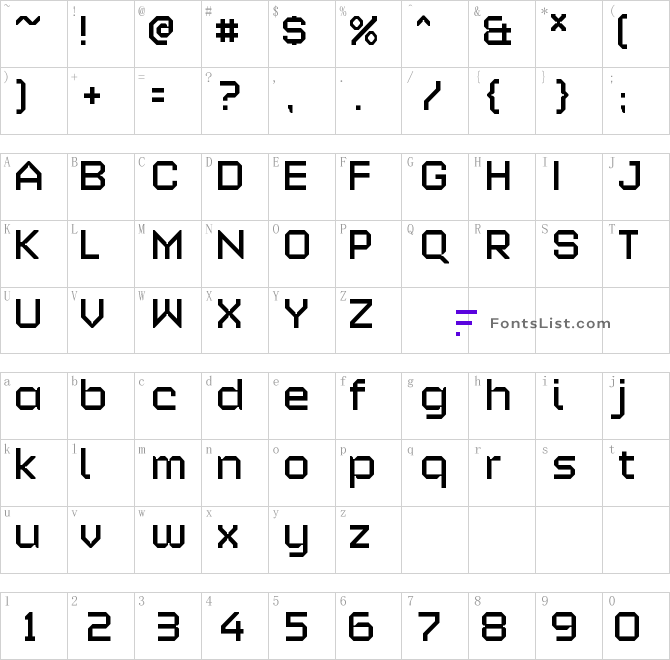
- Font Name:Alloy
Alloy.ttf is a very beautiful artistic font, Alloy.ttf is widely used in the design and printing of various books and pictures,Alloy.ttf has a strong visual impact,Alloy.ttf is a commonly used font in newspapers, magazines and books, and is used in posters, e-commerce Poster design, store design, logo design, font design and other fields.Alloy.